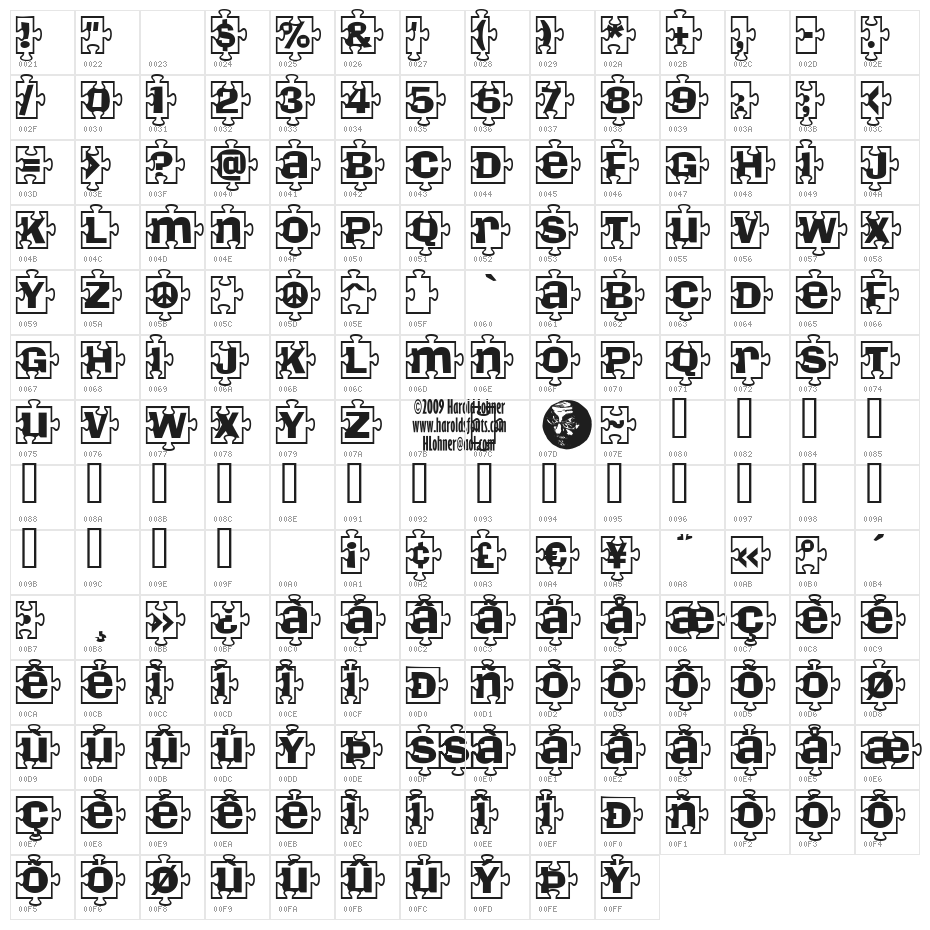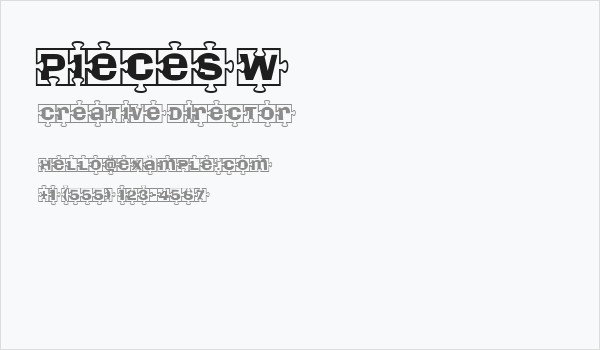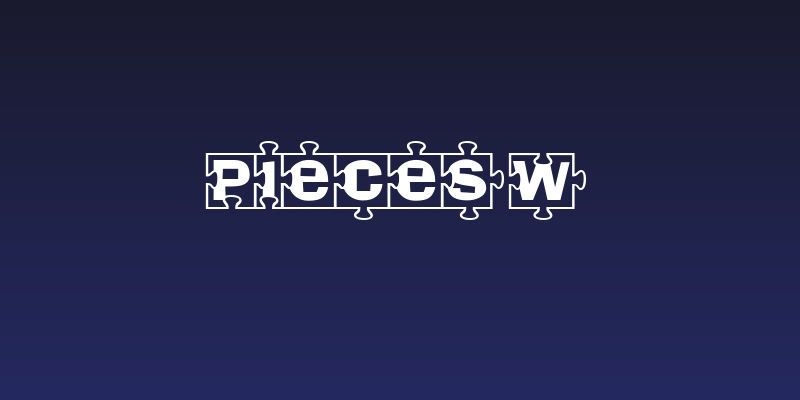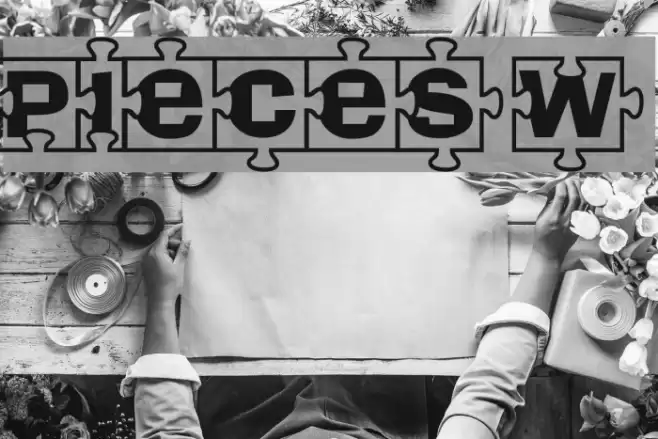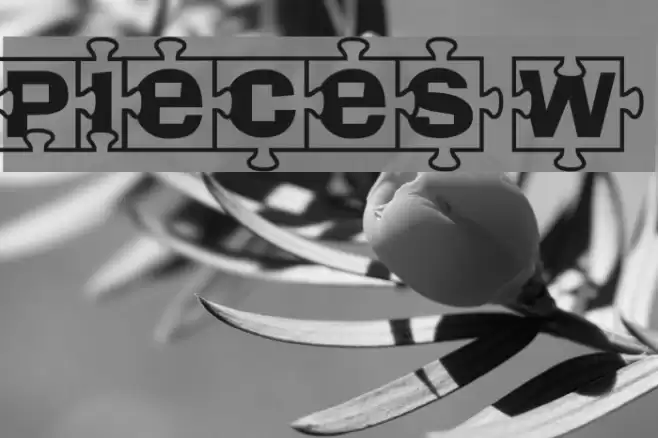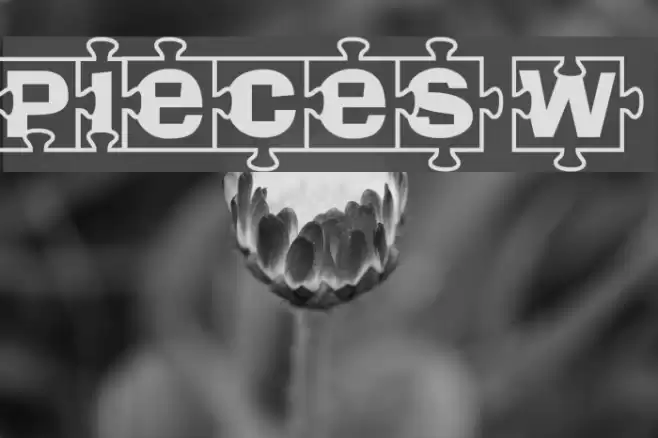
Pieces W Font
Pieces W Description
This font features a unique puzzle piece design, where each character is enclosed within a jigsaw puzzle shape. The letters and numbers are bold and have a strong presence, making them stand out against the puzzle outline. The font combines a playful and creative aesthetic with a sense of structure and order, thanks to the interlocking puzzle pieces. The characters are evenly spaced, and the boldness of the font ensures high visibility and readability. This design is particularly eye-catching and would be suitable for projects that require a fun and engaging visual element.
| Use Case | Logos, Headlines, Posters |
| Proposed Projects | Ideal for children's books, educational materials, playful branding, and creative posters. |